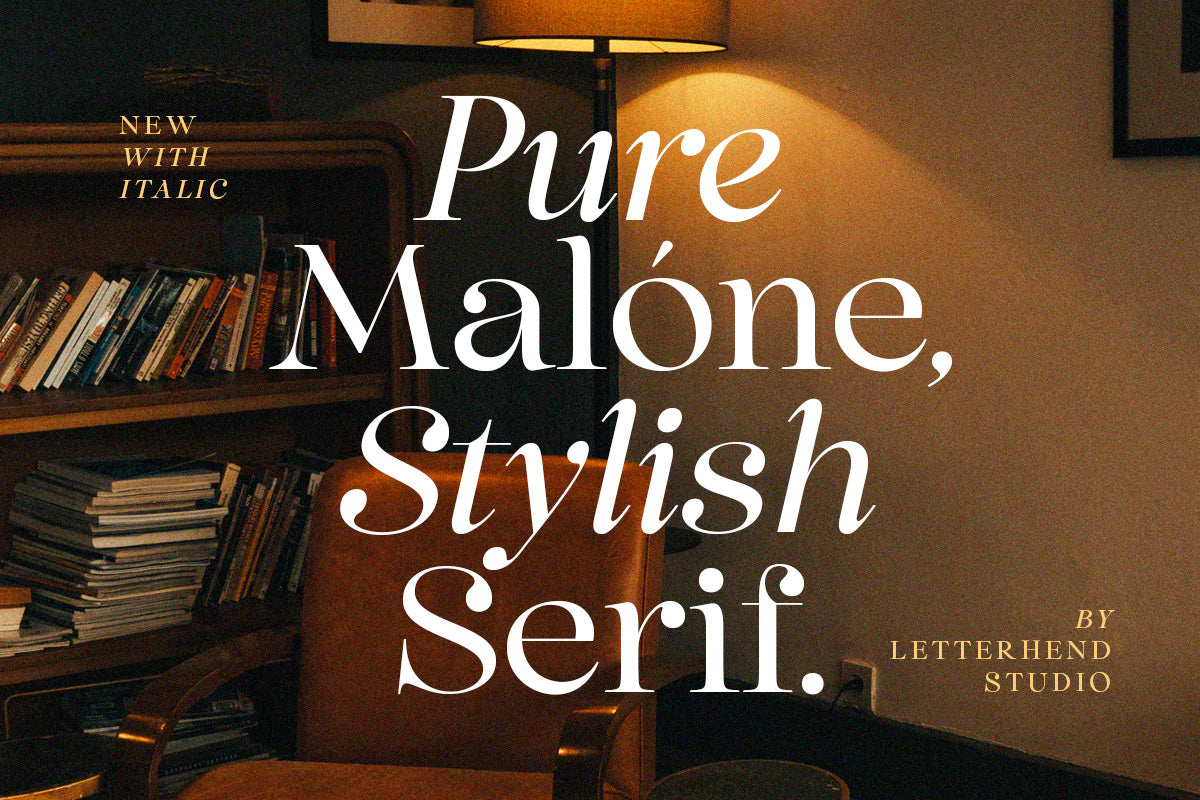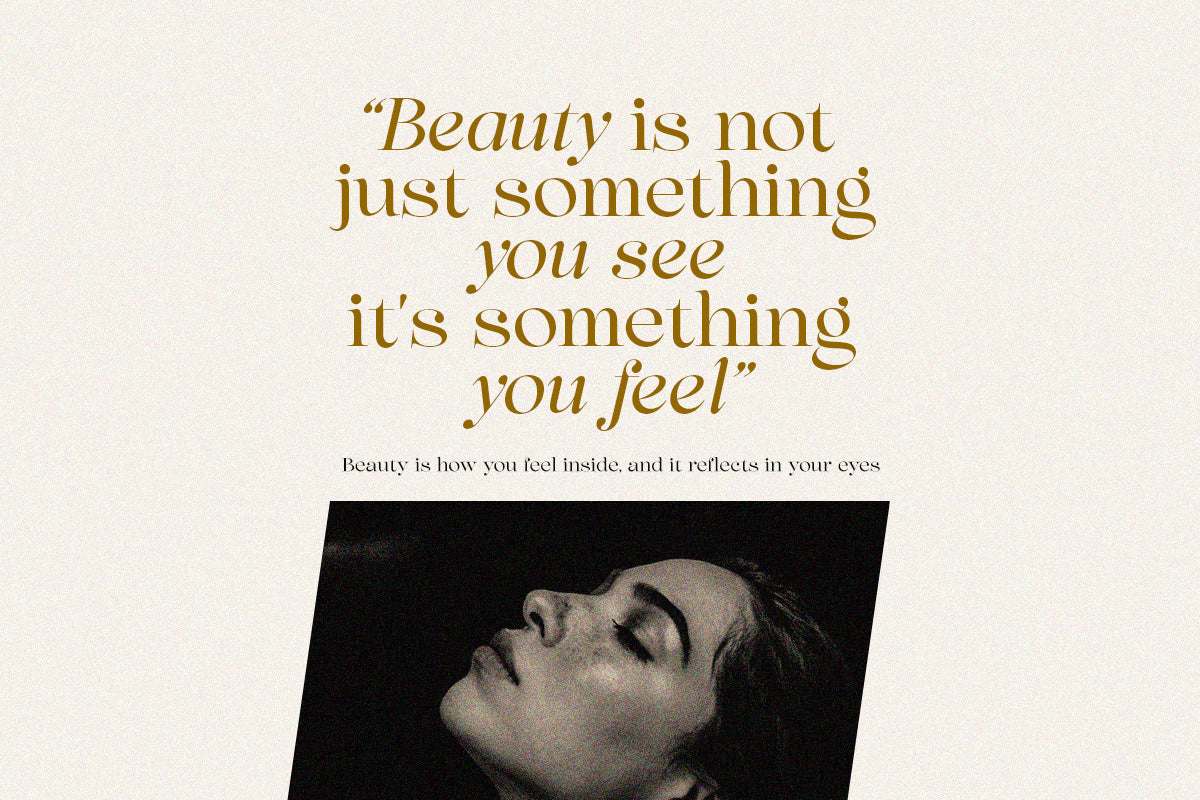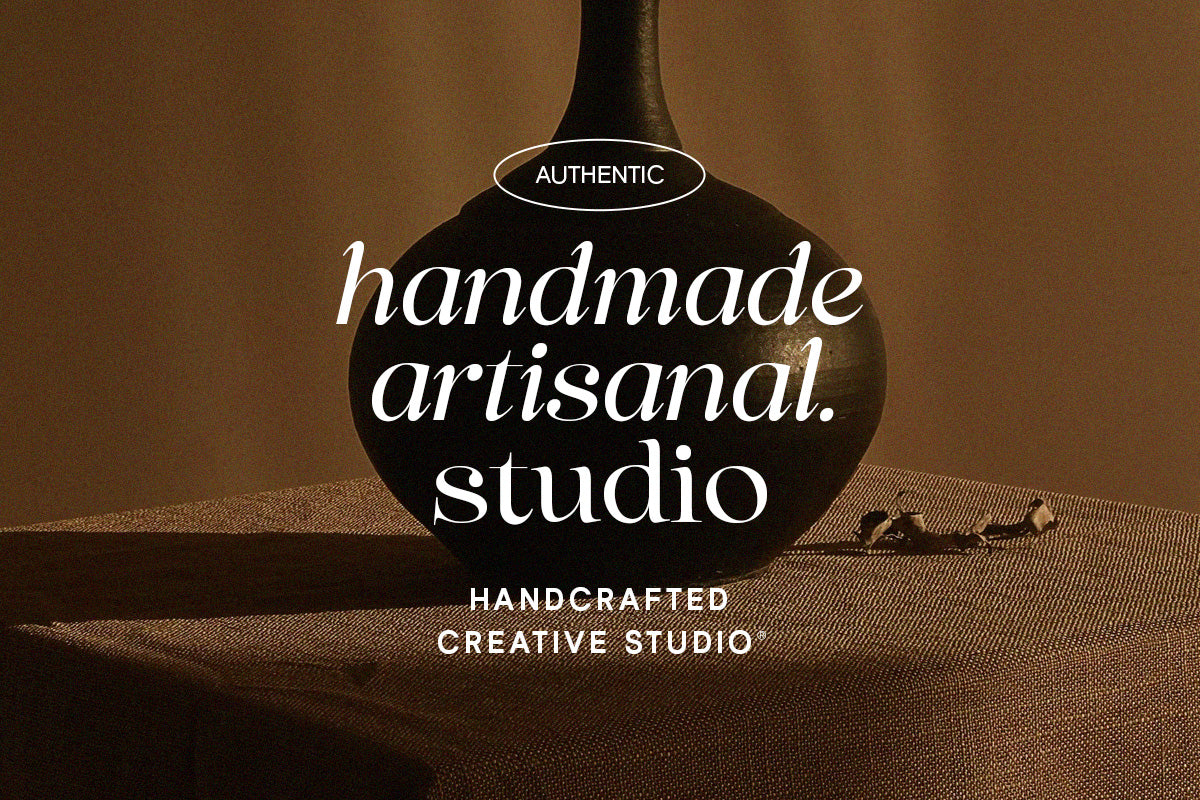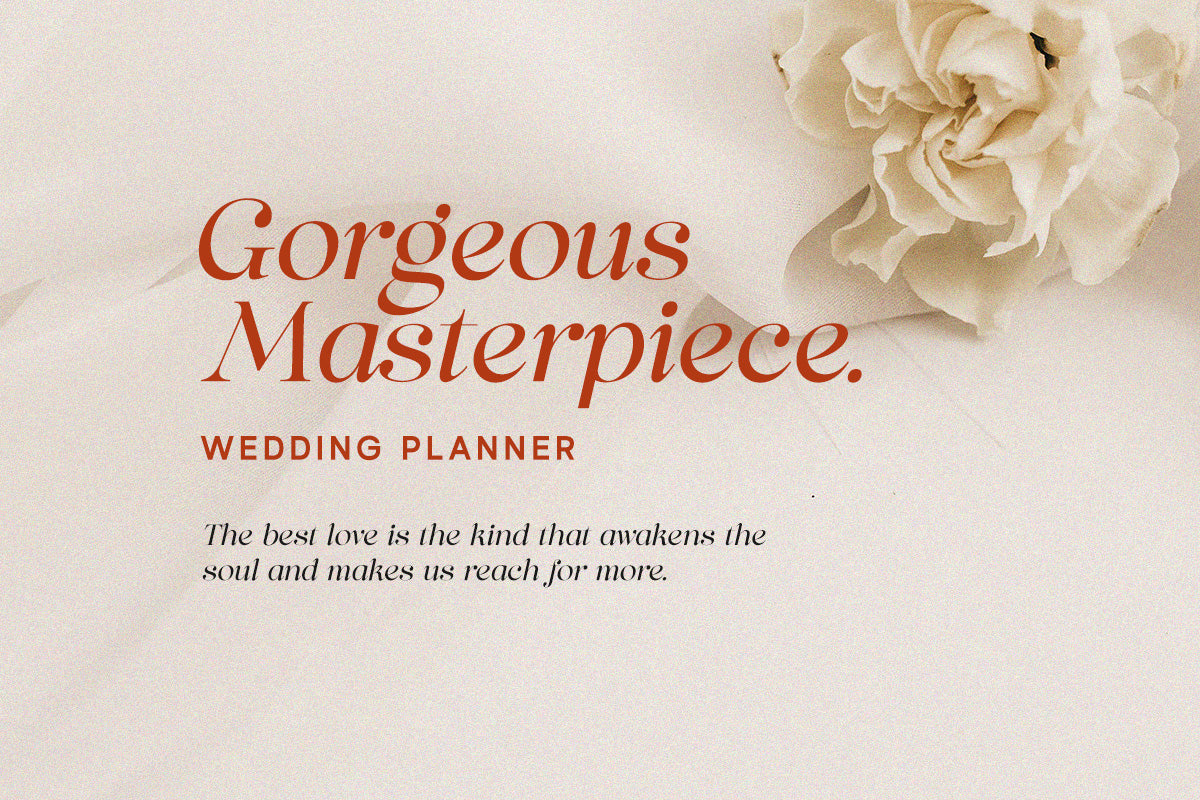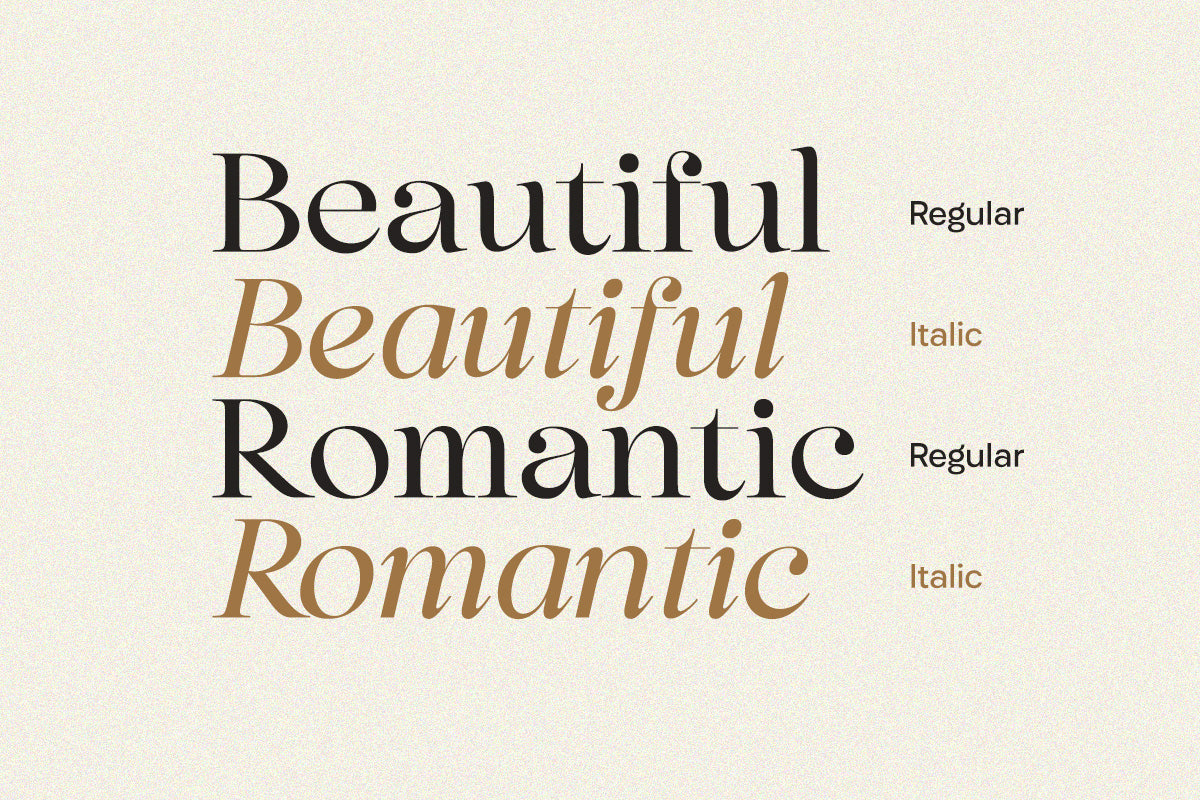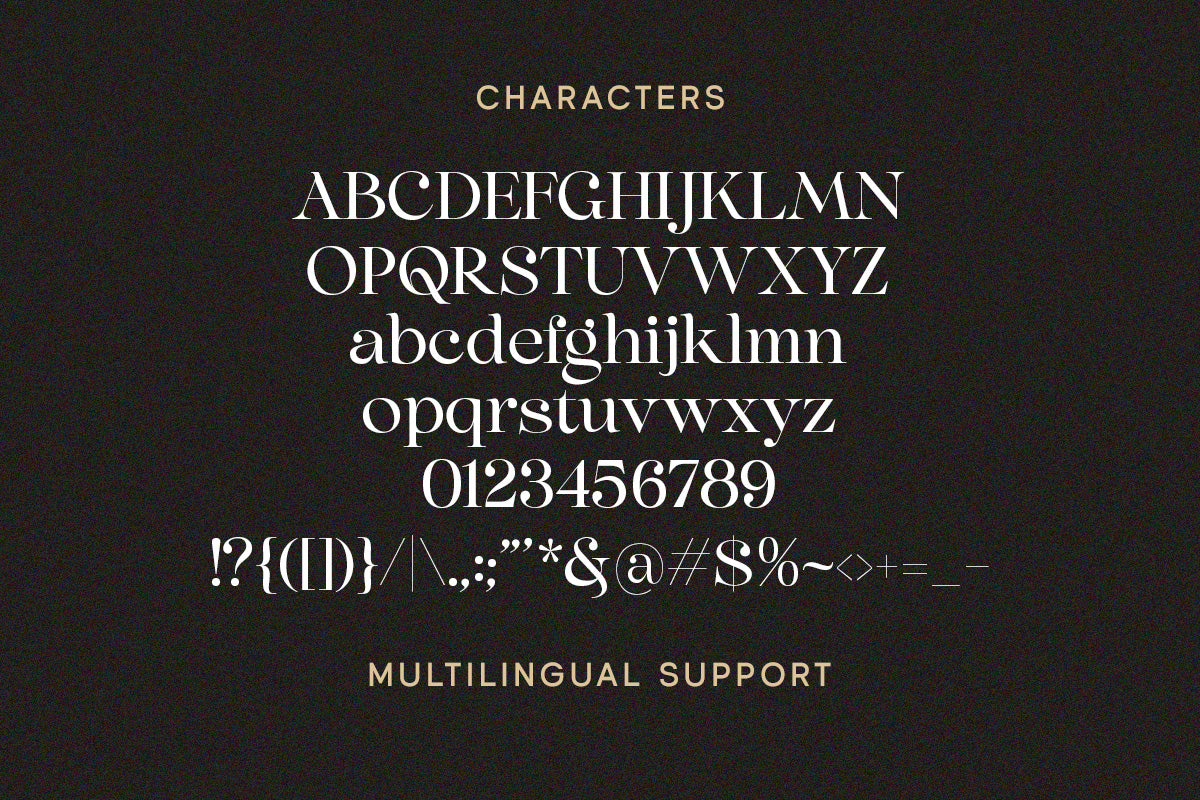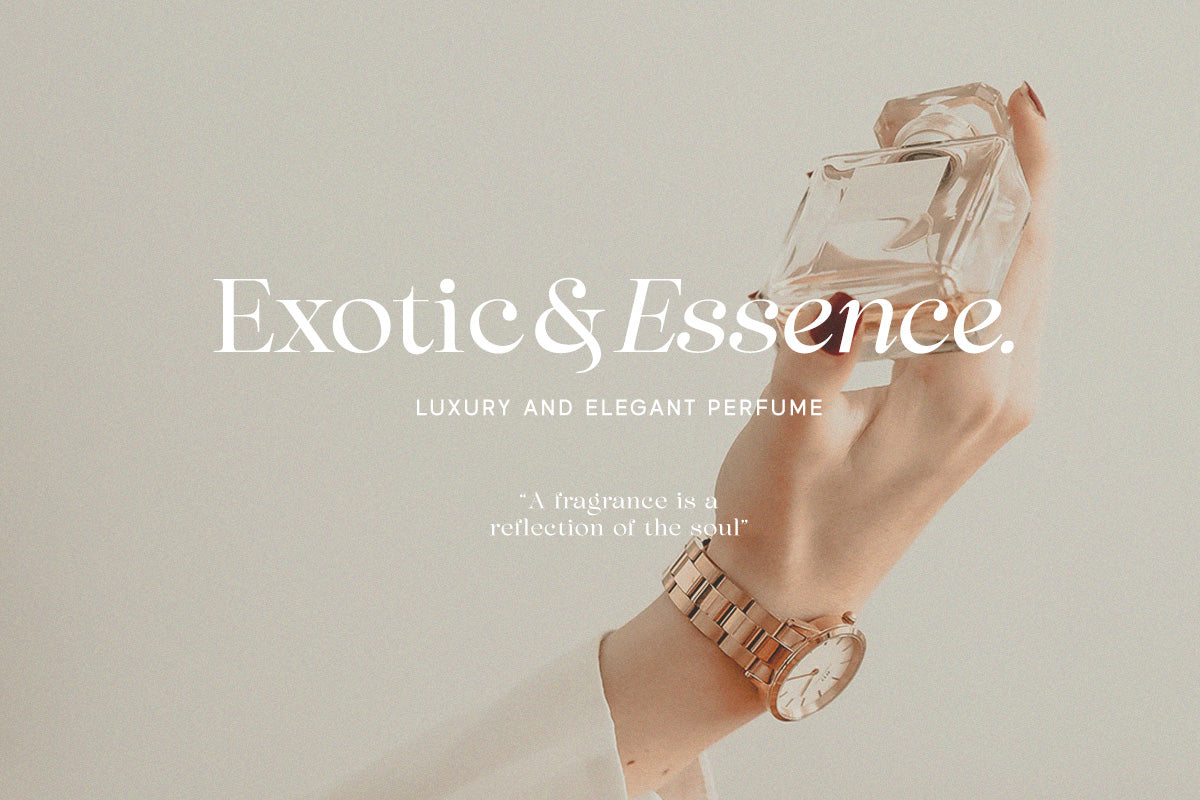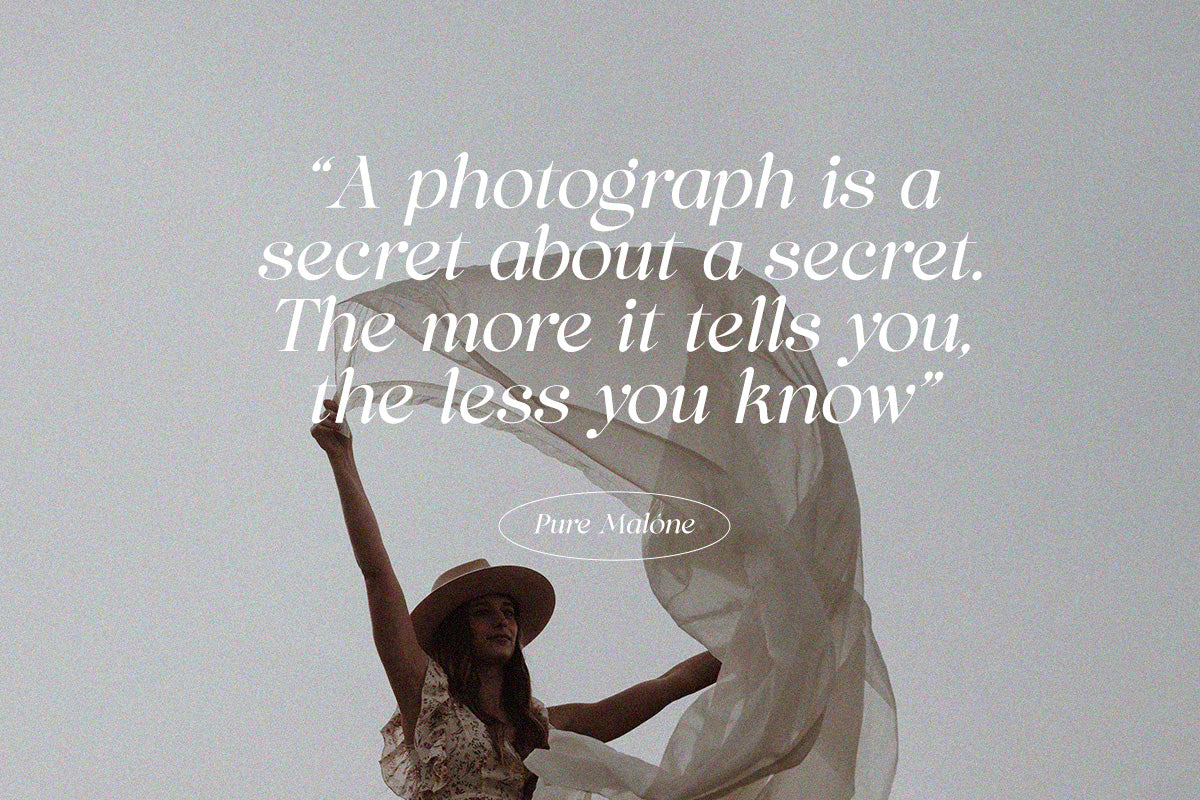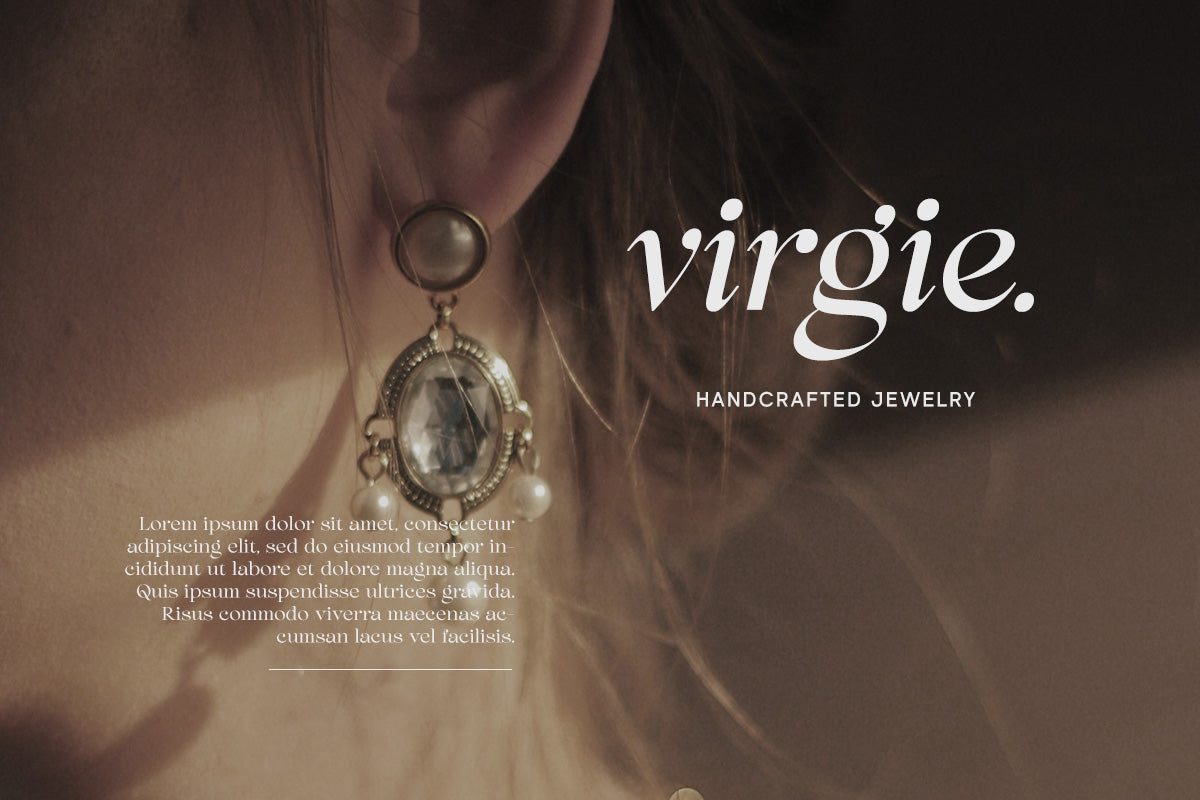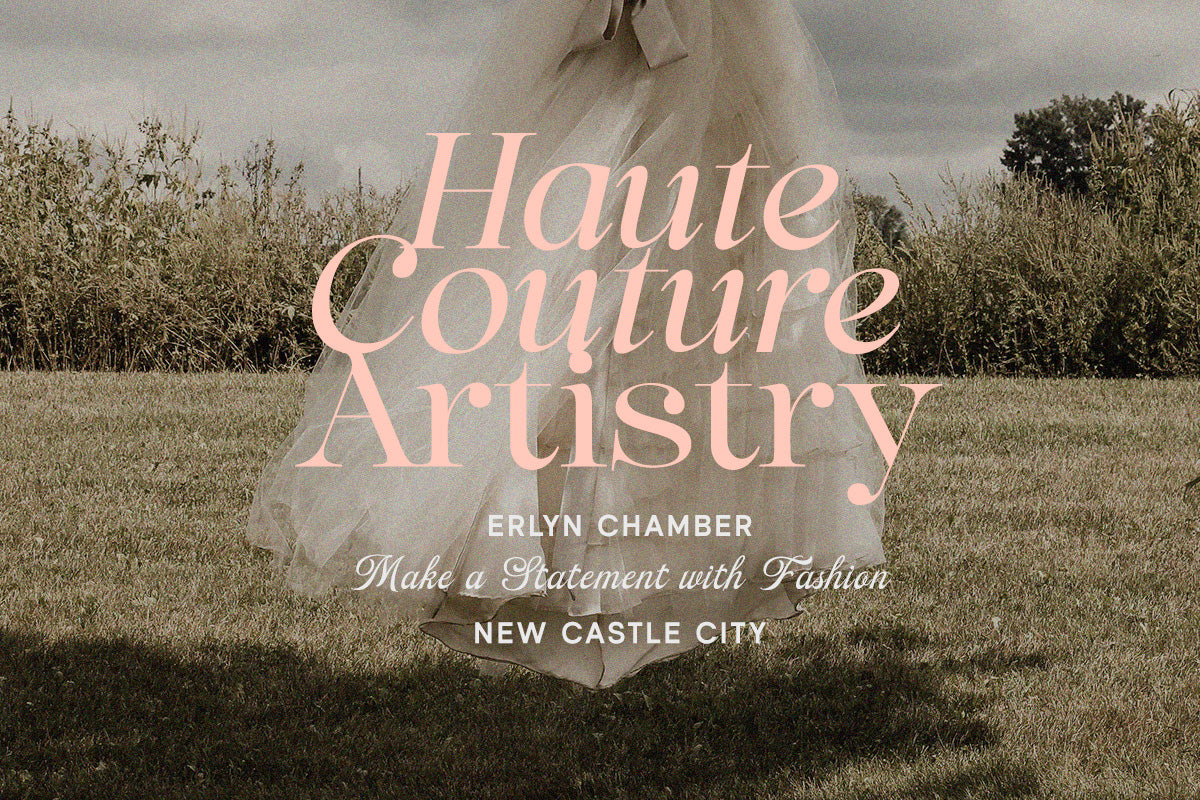
Pure Malone
Pure Malone - Stylish Serif
Pure Malone is an stylish serif font with a elegant and modern look. Its stylish and sophisticated design adds a touch of refinement to any project, while the italic version brings a subtle yet captivating twist.
This font perfectly made to be applied especially in logo, and the other various formal forms such as invitations, labels, logos, magazines, books, greeting / wedding cards, packaging, fashion, make up, stationery, novels, labels or any type of advertising purpose.
Features :
Uppercase & lowercase
Numbers and punctuation
Alternates & Ligatures
Multilingual